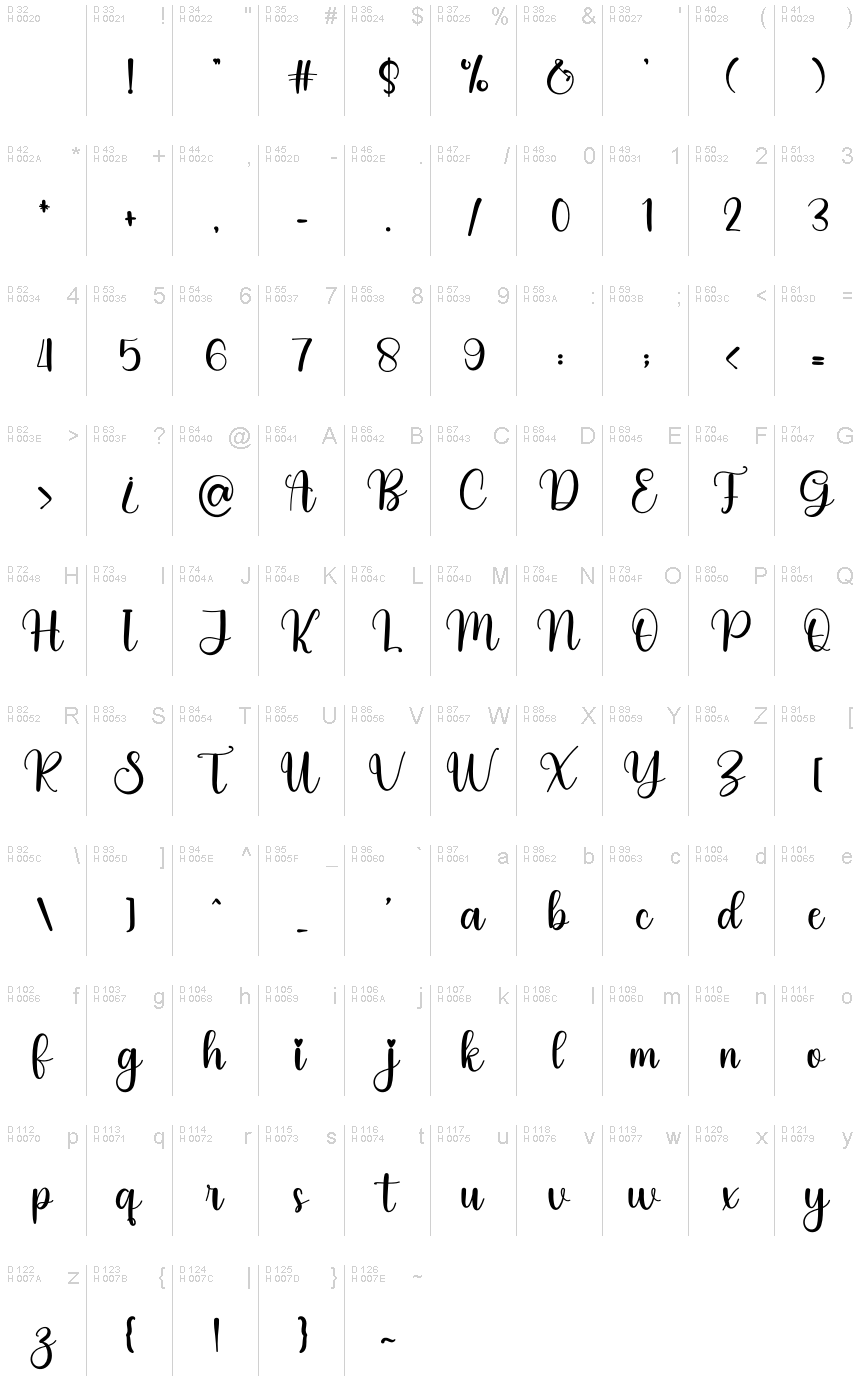
Winter
Winter, designed by FreshtypeINK, exudes the charm of personal touch with its handwritten style that brings warmth to any project. Its fluid strokes and elegant loops mirror the carefree dance of a feather on air, imbuing each character with a sense of individuality and grace. The playful heart flourish on the 'i' adds a whimsical twist that encapsulates the font's overall friendly and inviting demeanor.
Ideal for invitations, greeting cards, and branding that desires a touch of intimacy, Winter invites your audience into a world crafted by hand—a world where every letter tells a story. Its approachable elegance makes it perfect for designs seeking to convey authenticity with sophistication.